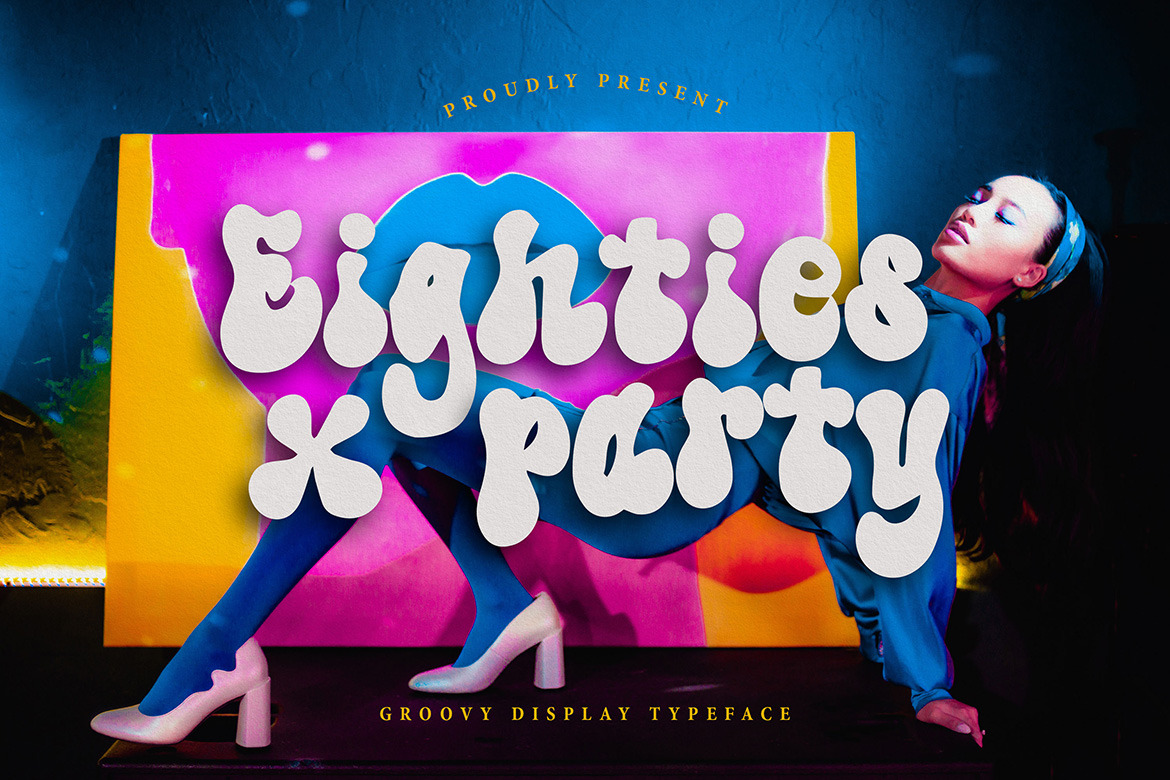
Eighties Party - Bubble Retro Font
Groovy, bubbly, funny, cute, retro and handwritten font for your new projects. With lot of ligatures & multi language support. Cool & happy casual school style ;)
- multilingual support
- ligature characters
- CAPS & CAPS alternates (small letters) + numbers & special characters